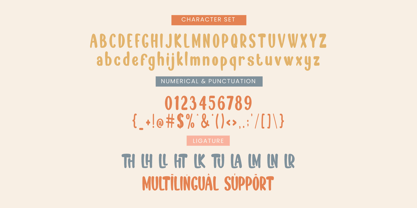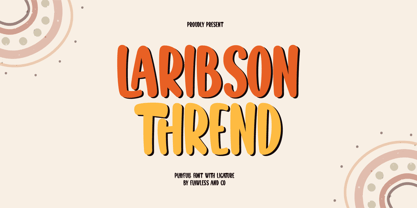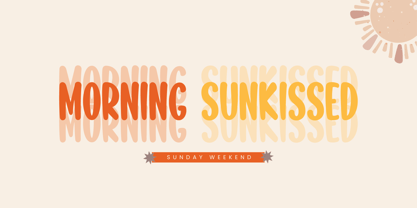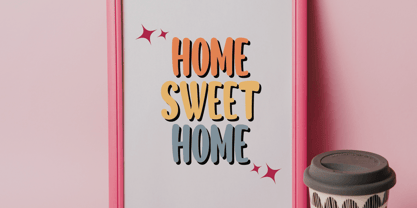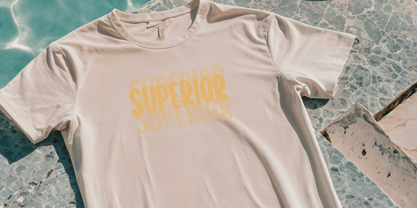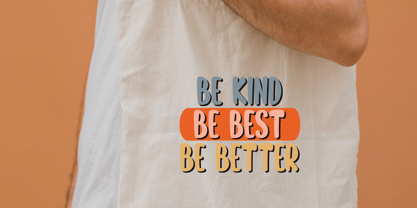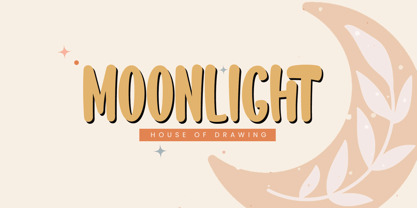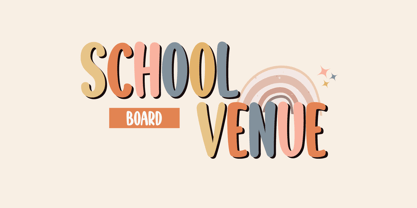
Laribson Thrend
The Laribson Thrend Font Family was designed by Achmad Yani and published by Flawlessandco. Laribson Thrend contains 1 styles. More about this family
Laribson Thrend is a playful sans serif font designed to bring energy and creativity to your projects. With its fun and modern style, this font is perfect for branding, packaging, headlines, and more. Whether you're creating bold visuals or lighthearted designs, Laribson Thrend adds a fresh and stylish touch to any composition.
There's some connected letters and some alternates that suitable for any graphic designs such as branding materials, print, business cards, logo, poster, t-shirt, photography, quotes, etc.
This font support for some multilingual. Also contains uppercase A-Z and lowercase a-z, alternate character, numbers 0-9, alternates & ligatures, and some punctuation.